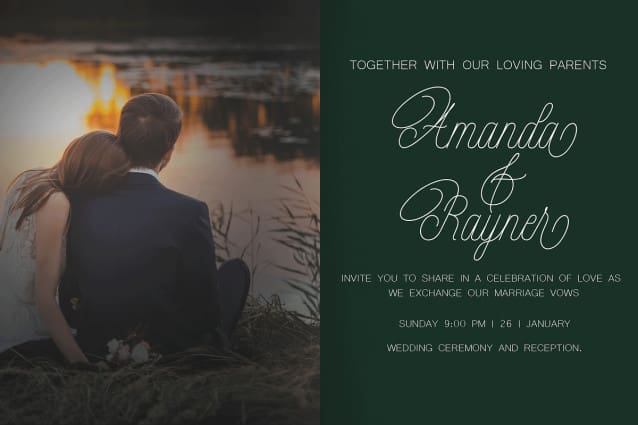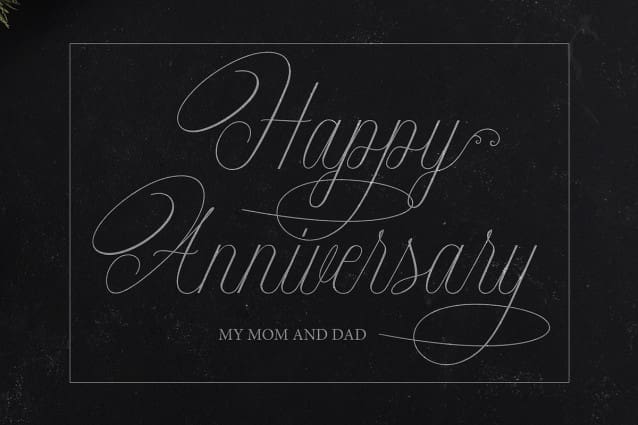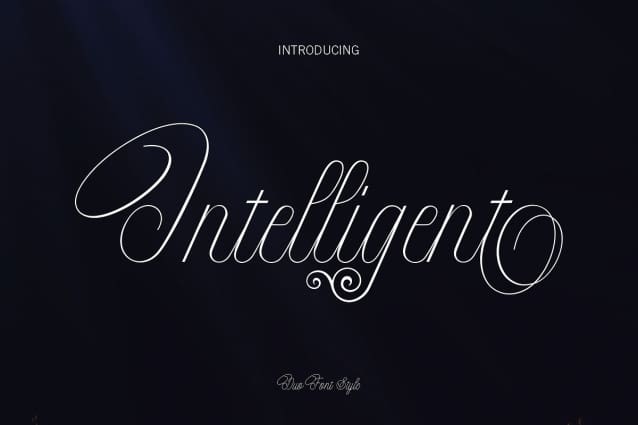
Intelligent Font
Intelligent Font is a modern and elegant calligraphic script font that comes with beautiful character changes, scripts with a modern touch. Intelligent has two subtle styles, clean, feminine, sensual, glamorous, simple and very easy to read. And many alternative styles that are suitable for many letters. This font style is suitable for a variety of designs such as invitations, labels, restaurant menus, logos, fashion, makeup, stationery, novels, magazines, books, greeting / wedding cards, packaging, labels and others.